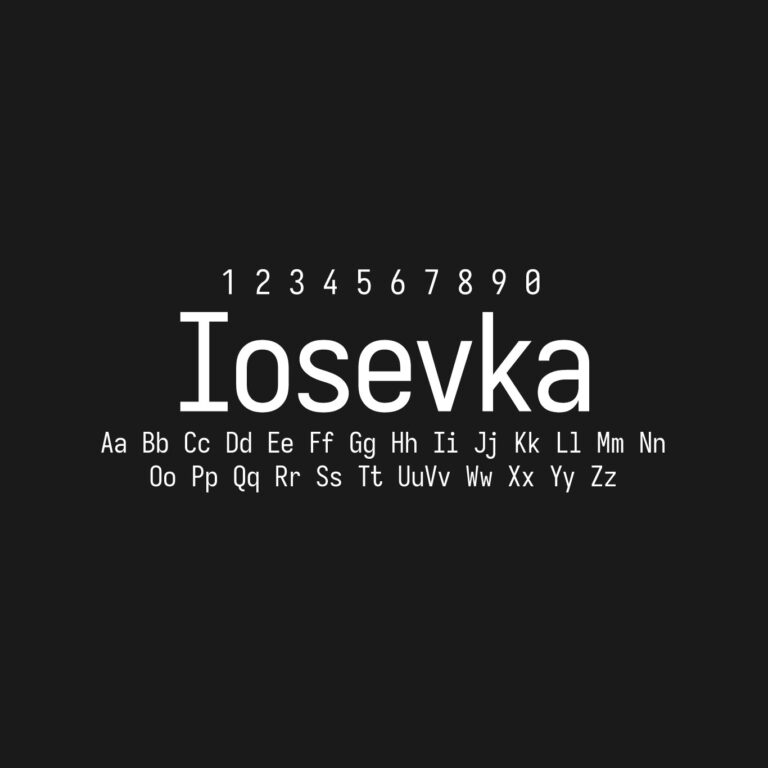
Iosevka is a highly readable monospaced coding font designed for developers, terminals and technical writing. It has a narrow structure, clear character shapes and a modern programming-focused appearance, making it useful for code editors, terminal windows, code screenshots, documentation, developer portfolios, programming tutorials and software-related design projects.
Font Name: Iosevka
Font Type: Monospaced Font
Category: Coding Font / Developer Font
Visual Style: Monospaced, narrow, technical, clean, readable
Best For: Code editors, programming, terminals, developer portfolios, documentation and coding tutorials